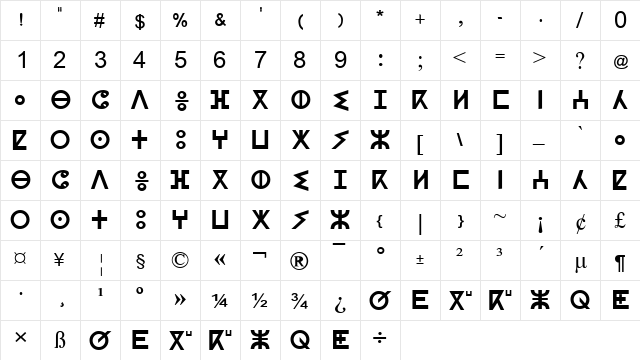
Tifinaghe-izuren Tifinaghe-izuren
| Foundry | IRCAM, |
Design Context for Tifinaghe-izuren Typeface
Tifinaghe-izuren takes a measured approach to typography — its balanced proportions and neutral character make it a reliable workhorse for both digital and print work.